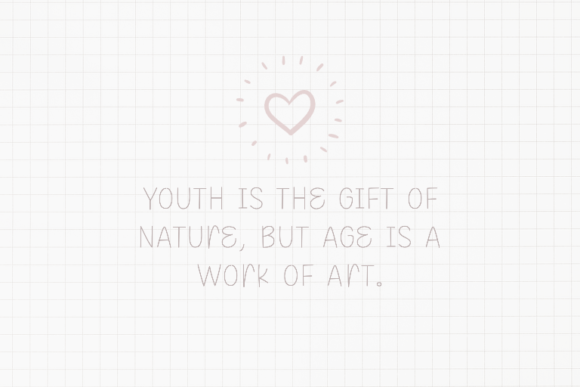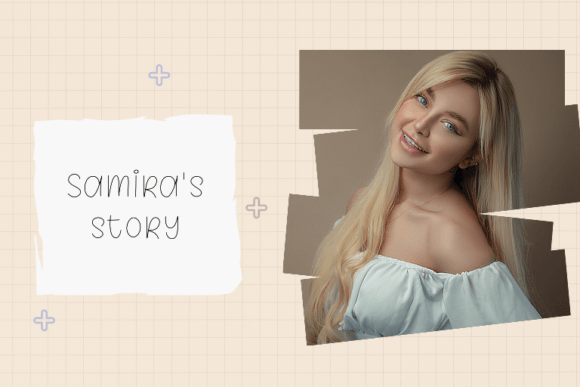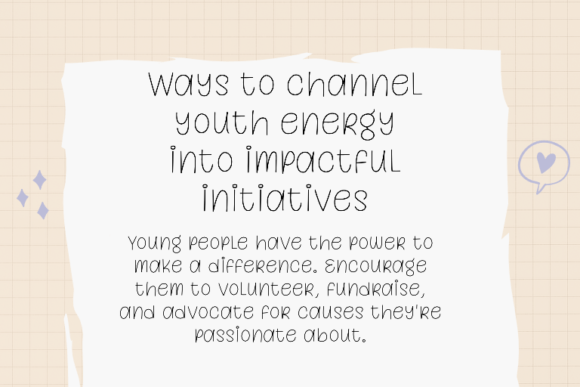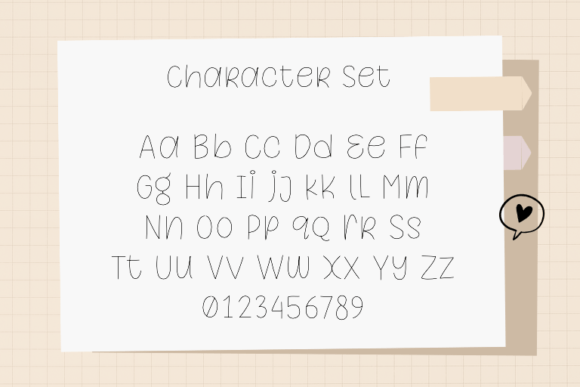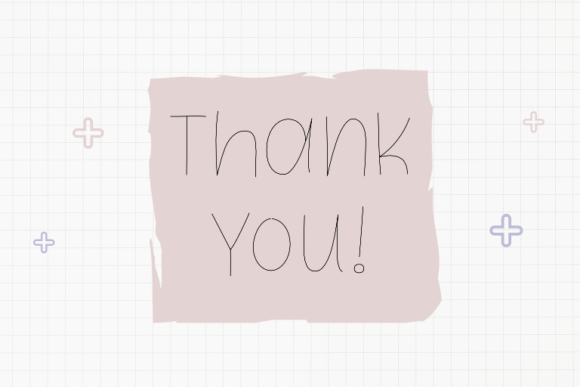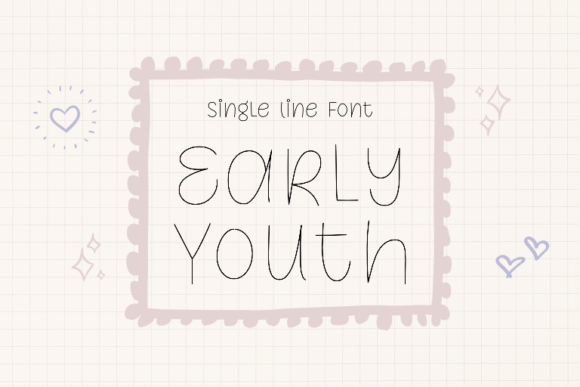
Introducing Early Youth Font: Elevate Your Designs with Elegance and Playfulness
In the world of typography, fonts play a crucial role in conveying messages, expressing emotions, and creating lasting impressions. For designers, crafters, and creative enthusiasts, finding the perfect font can be a daunting task. However, if you’re looking for a unique display single-line font that captures beauty and diversity, look no further than Early Youth Font. In this article, we’ll delve into the features, benefits, and uses of Early Youth Font, and explore how it can elevate your designs to new heights.
The Beauty of Early Youth Font
Early Youth Font is a meticulously crafted display font that embodies the fluidity and natural flow of handwriting, while maintaining a clean and polished appearance. Each character is carefully designed to evoke a sense of elegance and playfulness, making it perfect for a wide range of projects. Whether you’re working on branding, packaging, social media graphics, or any other creative endeavor, Early Youth Font is sure to impress.
Key Features of Early Youth Font
- Unique Display Font: Early Youth Font is a one-of-a-kind display font that stands out from the crowd. Its single-line design makes it perfect for headlines, titles, and short phrases.
- Elegant yet Playful: This font strikes the perfect balance between elegance and playfulness, making it suitable for a variety of design projects.
- Handwriting-Inspired: Early Youth Font is inspired by the fluidity and natural flow of handwriting, giving it a personal and human touch.
- Clean and Polished: Despite its handwriting-inspired design, Early Youth Font remains clean and polished, ensuring that your designs look professional and refined.
Uses of Early Youth Font
Early Youth Font is an incredibly versatile font that can be used in a variety of design projects, including:
- Branding: Create stunning logos, business cards, and letterheads that showcase your brand’s personality and style.
- Packaging: Add a touch of elegance and sophistication to your product packaging with Early Youth Font.
- Social Media Graphics: Elevate your social media presence with eye-catching graphics, posts, and stories that feature Early Youth Font.
- Advertising: Create captivating ad campaigns that grab attention and leave a lasting impression with Early Youth Font.
Benefits of Using Early Youth Font
By incorporating Early Youth Font into your designs, you can enjoy a range of benefits, including:
- Unique Visual Identity: Early Youth Font helps you create a distinctive visual identity that sets you apart from the competition.
- Emotional Connection: The font’s handwriting-inspired design and elegant yet playful style help create an emotional connection with your audience.
- Versatility: Early Youth Font can be used in a variety of design projects, making it a valuable addition to your font library.
- Time-Saving: With Early Youth Font, you can create stunning designs quickly and efficiently, saving you time and effort.
Tips for Using Early Youth Font
To get the most out of Early Youth Font, here are some tips to keep in mind:
- Experiment with Sizes: Play around with different font sizes to find the perfect balance for your design.
- Pair with Other Fonts: Combine Early Youth Font with other fonts to create a unique and visually appealing typography.
- Use in Combination with Images: Pair Early Youth Font with high-quality images to create stunning visual compositions.
| Font Name | Early Youth Font |
| Author | Single Line Studio |
Early Youth Font is a unique and versatile display font that can elevate your designs to new heights. With its elegant yet playful style, handwriting-inspired design, and clean and polished appearance, this font is perfect for a wide range of projects. Whether you’re a designer, crafter, or creative enthusiast, Early Youth Font is a valuable addition to your font library. So why wait? Download Early Youth Font today and start creating stunning designs that capture the beauty and diversity of your brand or project.